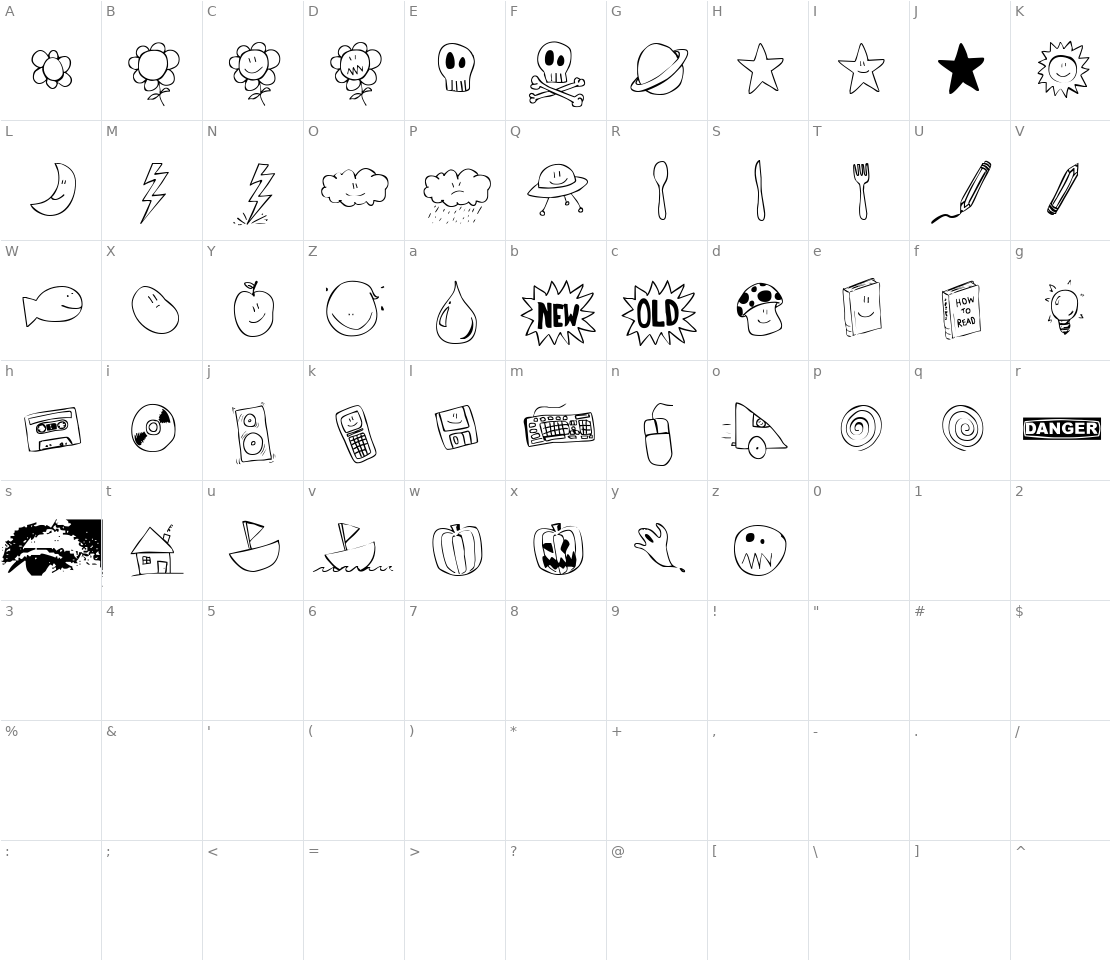
Tombats 1
Tombats 1 is a dingbat font from Divide by Zero packed with a quirky mix of symbols, from skulls and flowers to stars and cartoon-style icons. The drawings have a loose, playful quality that keeps things whimsical rather than polished, making them useful as spot illustrations, bullet points, or decorative accents in casual layouts. Not a text face by any stretch, just a grab bag of little drawings with genuine personality.